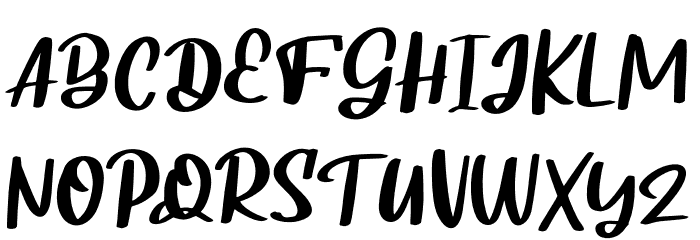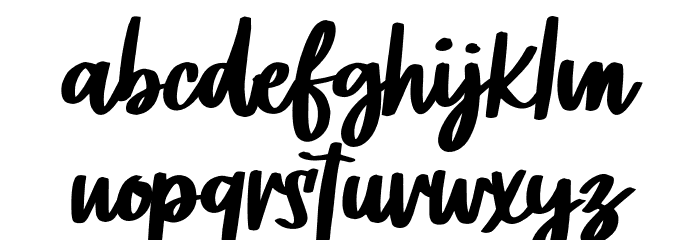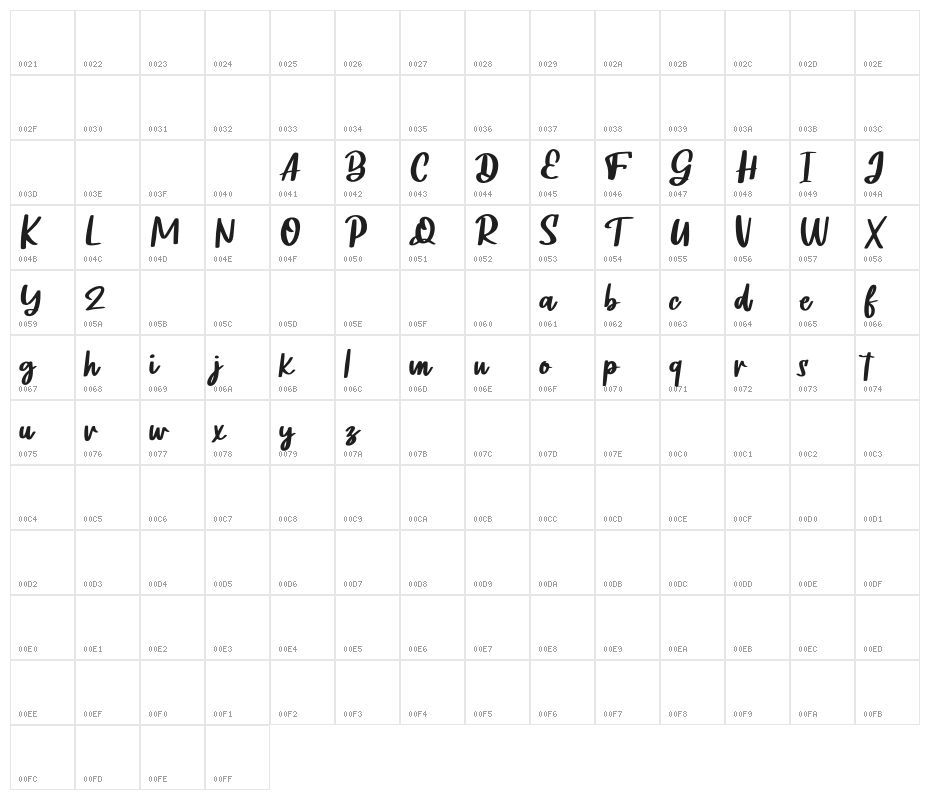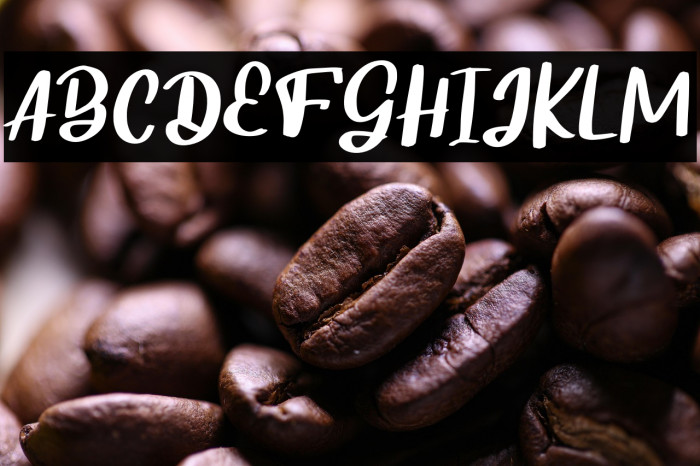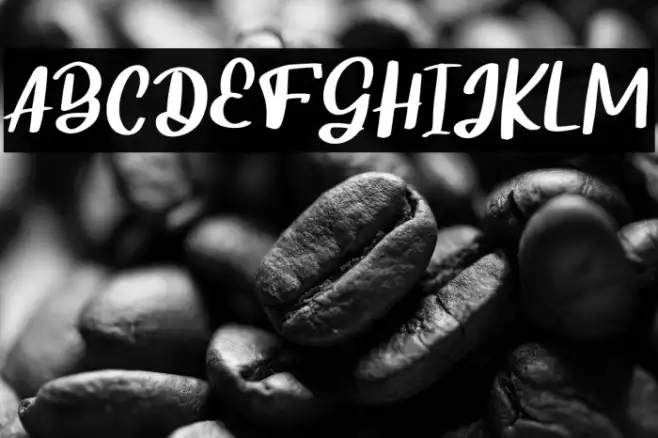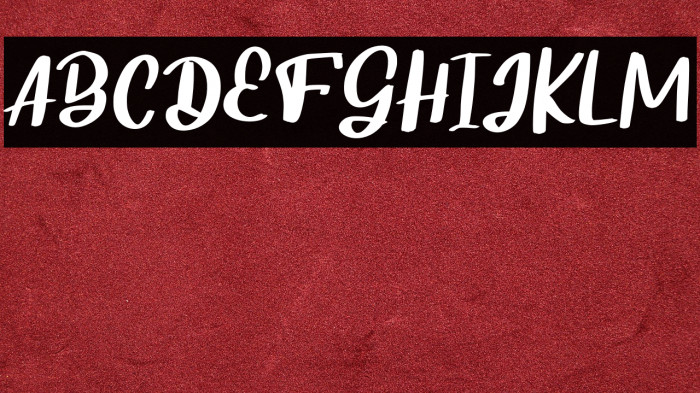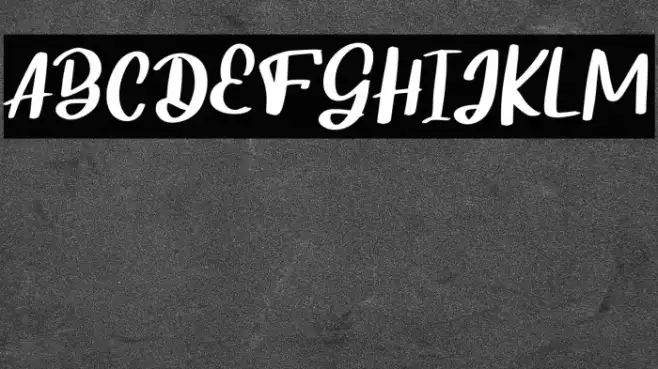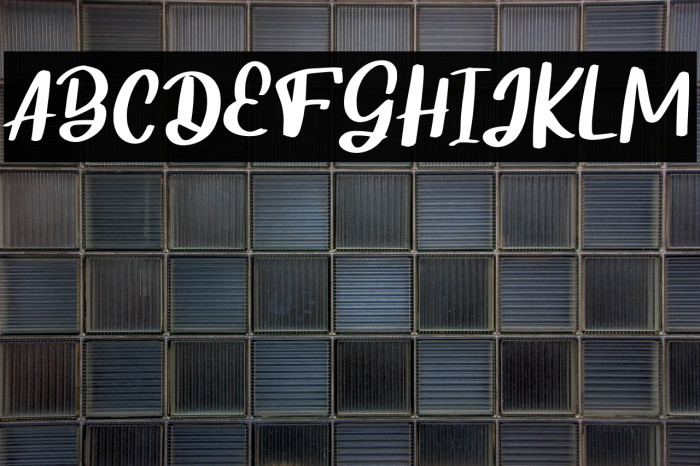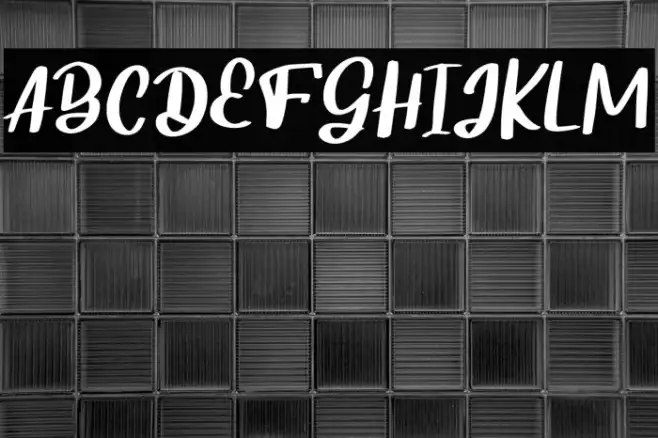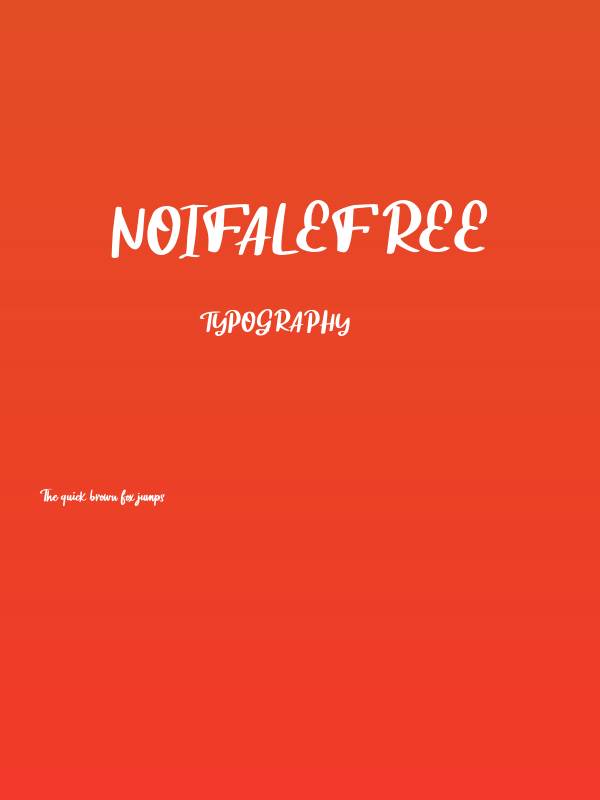
NoifaleFREE Font
This font features a bold and expressive style with a handwritten appearance. The characters are slightly slanted, giving a dynamic and energetic feel. The strokes are thick and consistent, providing a strong visual impact. The uppercase letters are tall and prominent, while the lowercase letters maintain a playful and flowing form. The font includes a full set of numerals and a selection of special characters, making it versatile for various design needs. Its overall look is both modern and casual, suitable for projects that require a personal touch.
A bold, handwritten-style font with a dynamic and expressive appearance.
- Font: NoifaleFREE
- Proposed Projects: Ideal for branding, invitations, social media graphics, and creative posters.